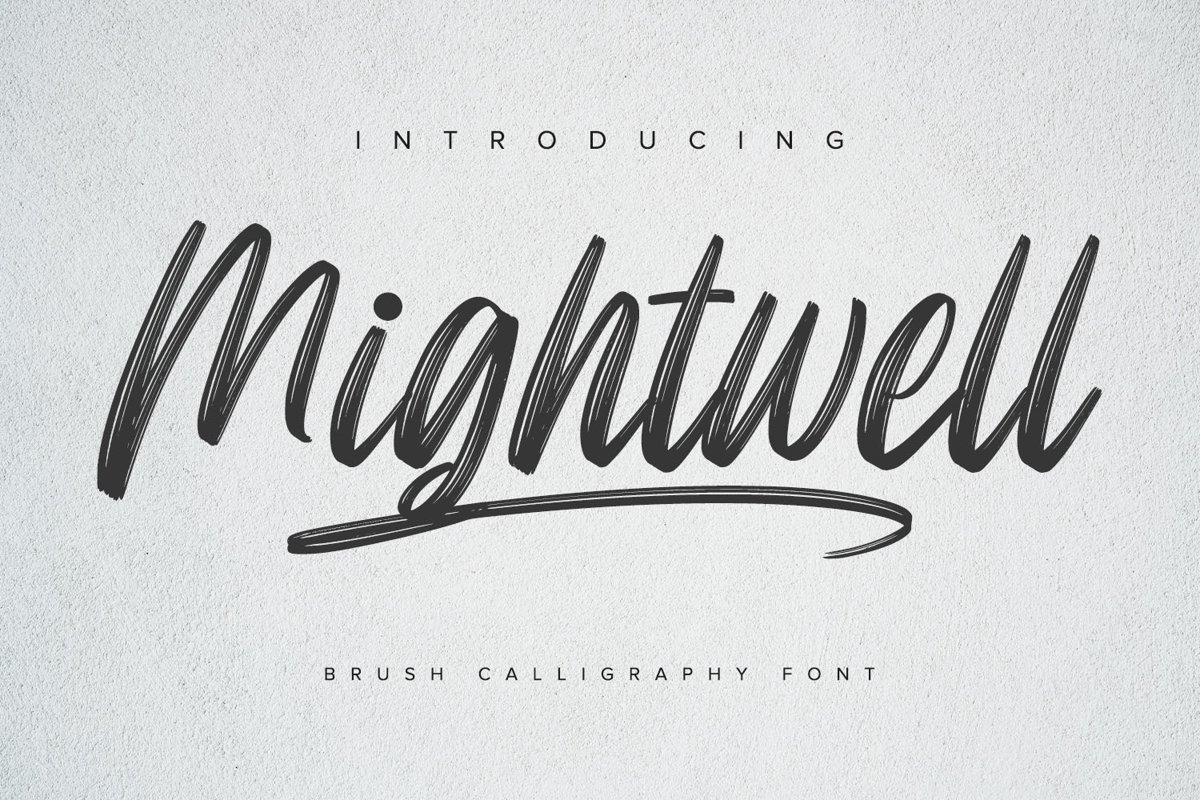
Mightwell - Brush Font
Mightwell Swash
Mightwell
Mightwell is a modern Brush font. With a classy and natural handwritten style, it brings a classy and chic typeface. Mightwell is best used for weddings, branding, logotype, and quotes.
- Beautiful Ligatures
- Numerals and Punctuation